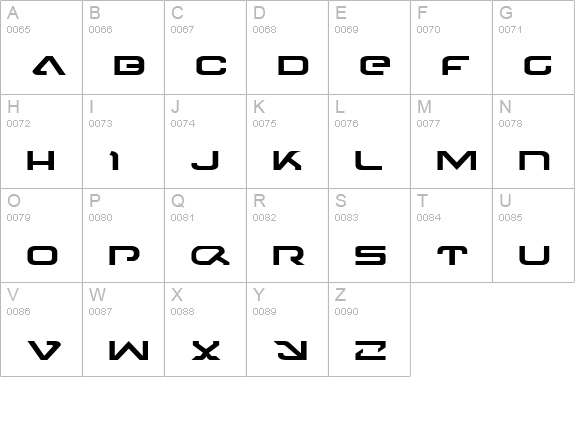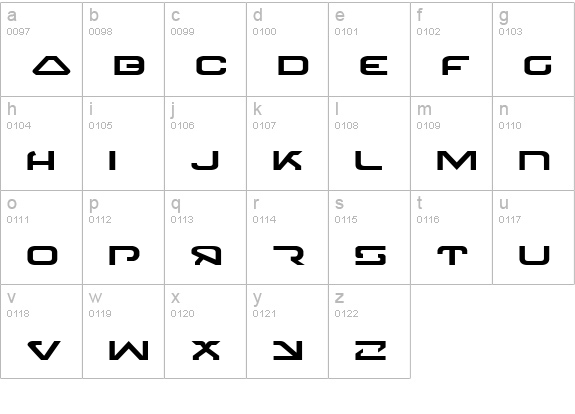
4114 Blaster Expanded is a distinctive, extended-width variant in the 4114 typeface family \xE2\x80\x94 well suited to design and typography projects.
The 4114 Blaster Expanded font is a bold and eye-catching typeface that commands attention with its striking design. Its expanded letterforms exude a sense of power and modernity, making it ideal for headlines, posters, and other display purposes. This versatile font combines a futuristic aesthetic with a touch of retro charm, creating a unique visual impact. Best of all, the 4114 Blaster Expanded font is available for free download at FontsMarket.com. With its distinctive style and easy accessibility, this font is a must-have for designers looking to make a bold statement in their projects. Elevate your designs with the dynamic energy of the 4114 Blaster Expanded font today.